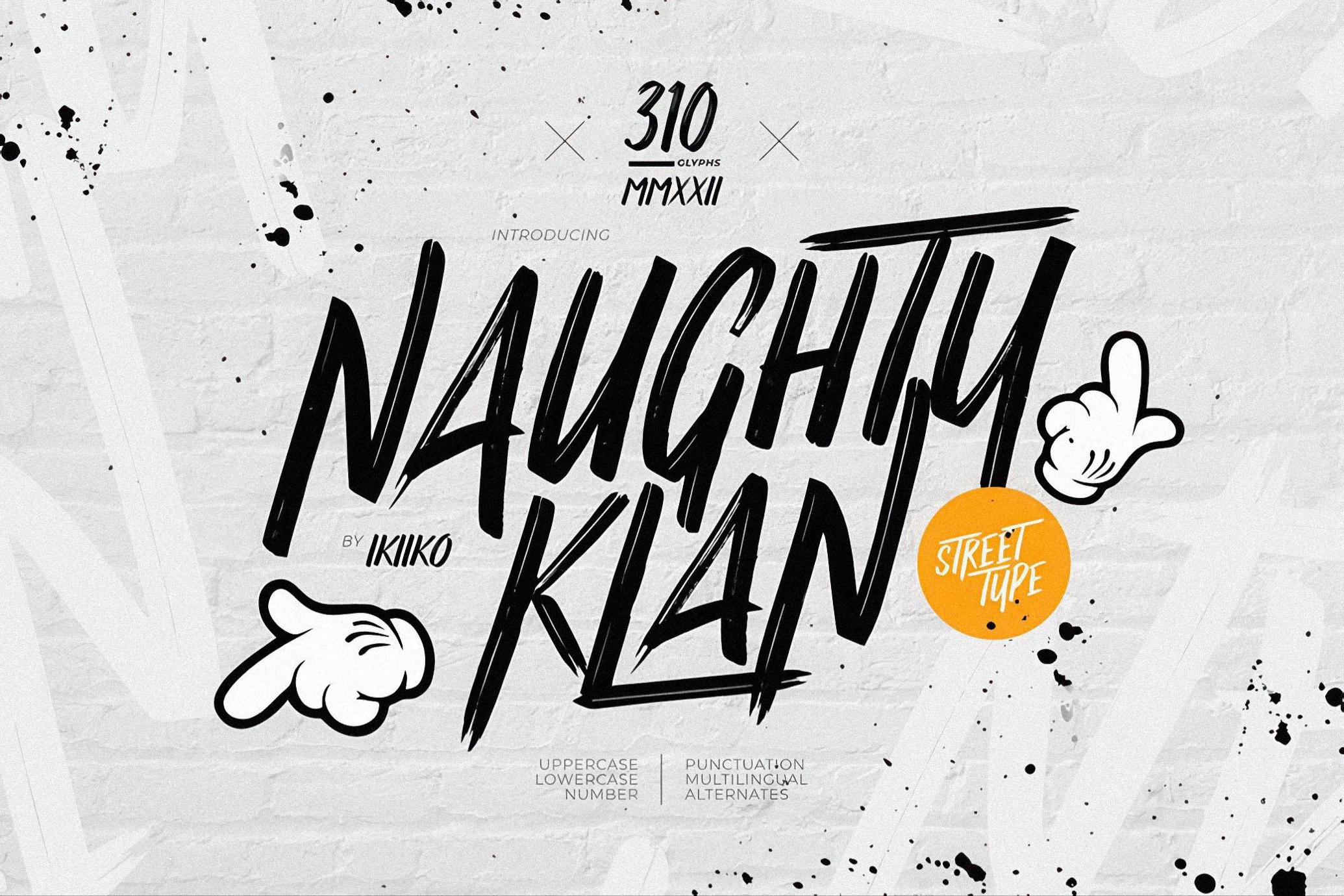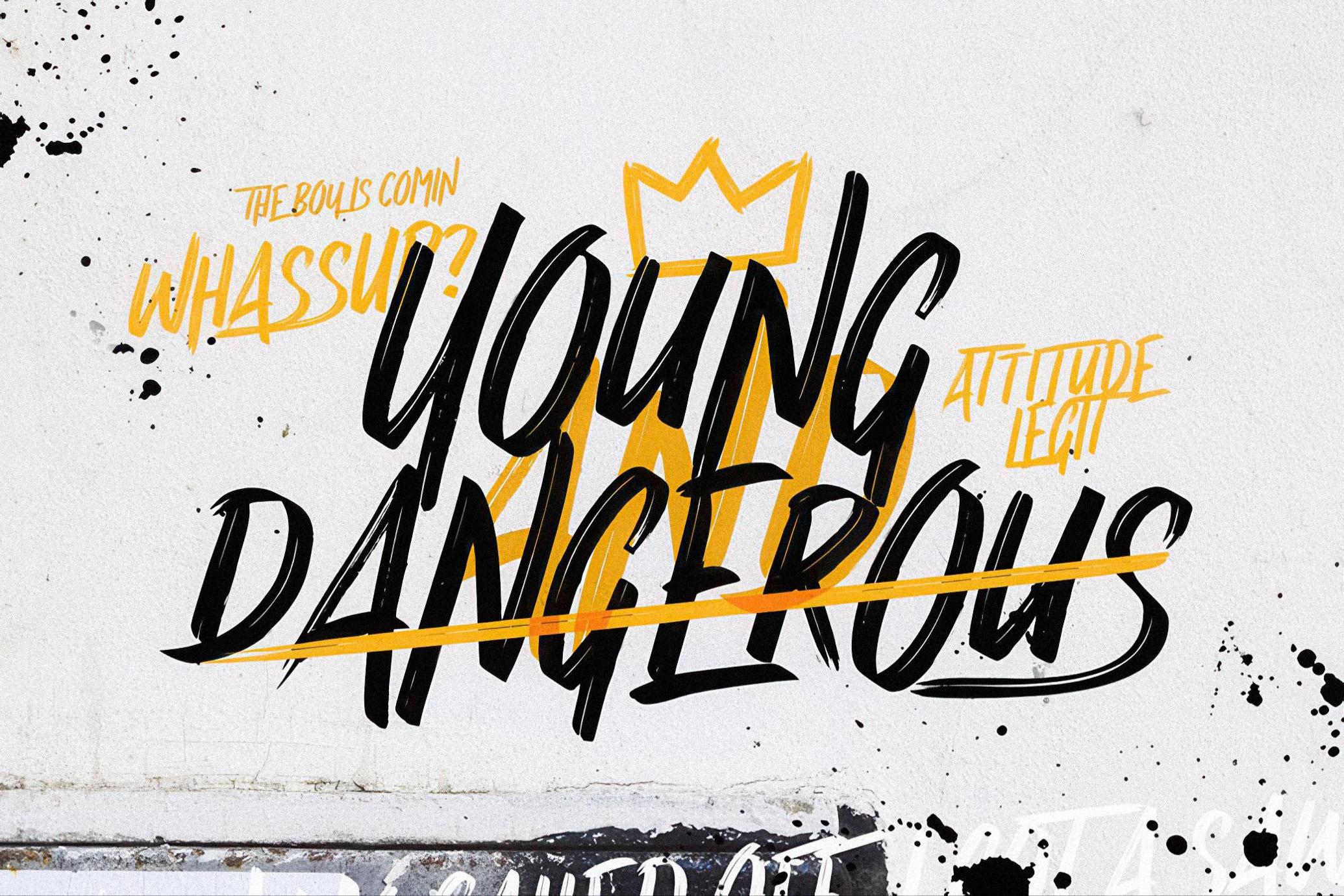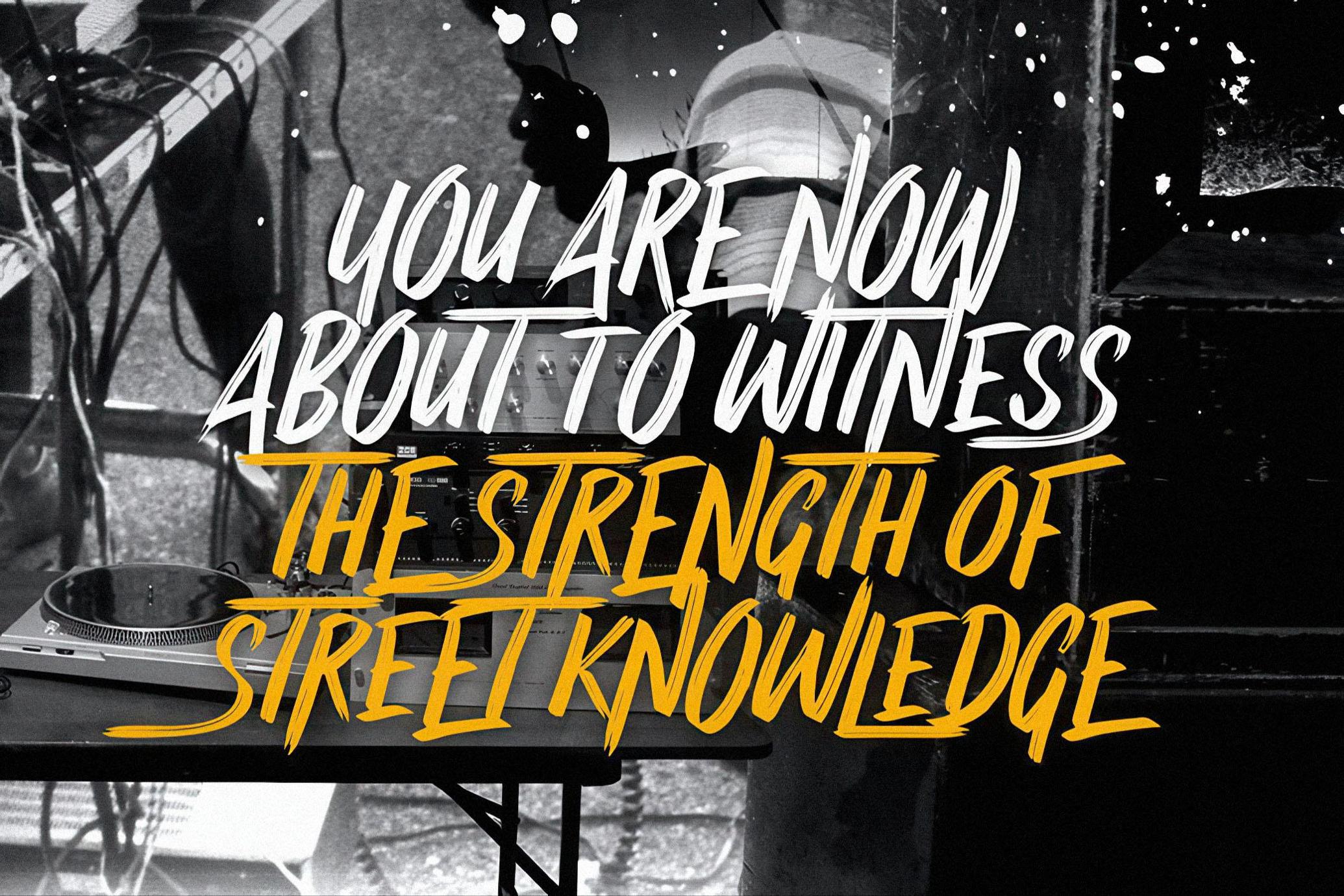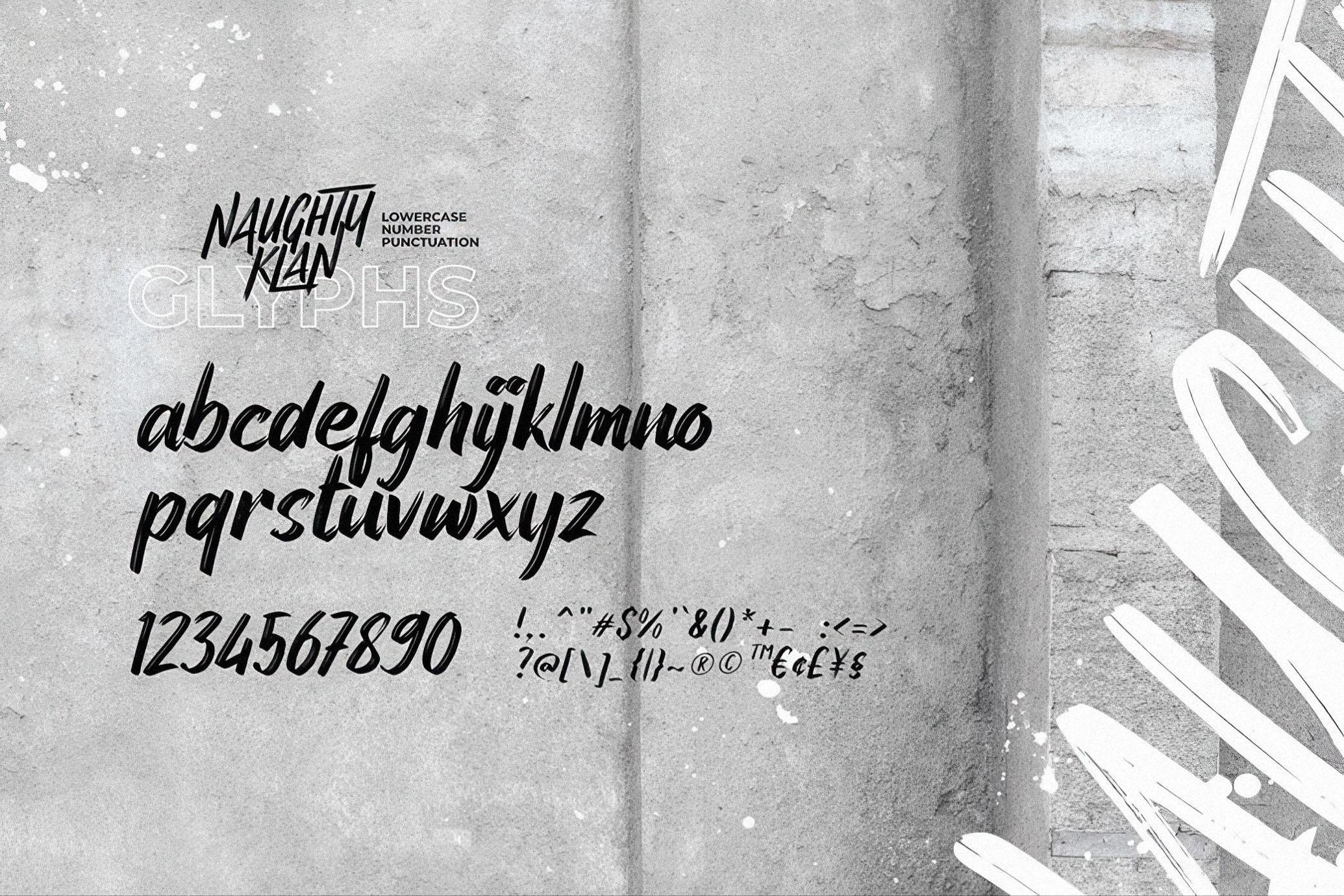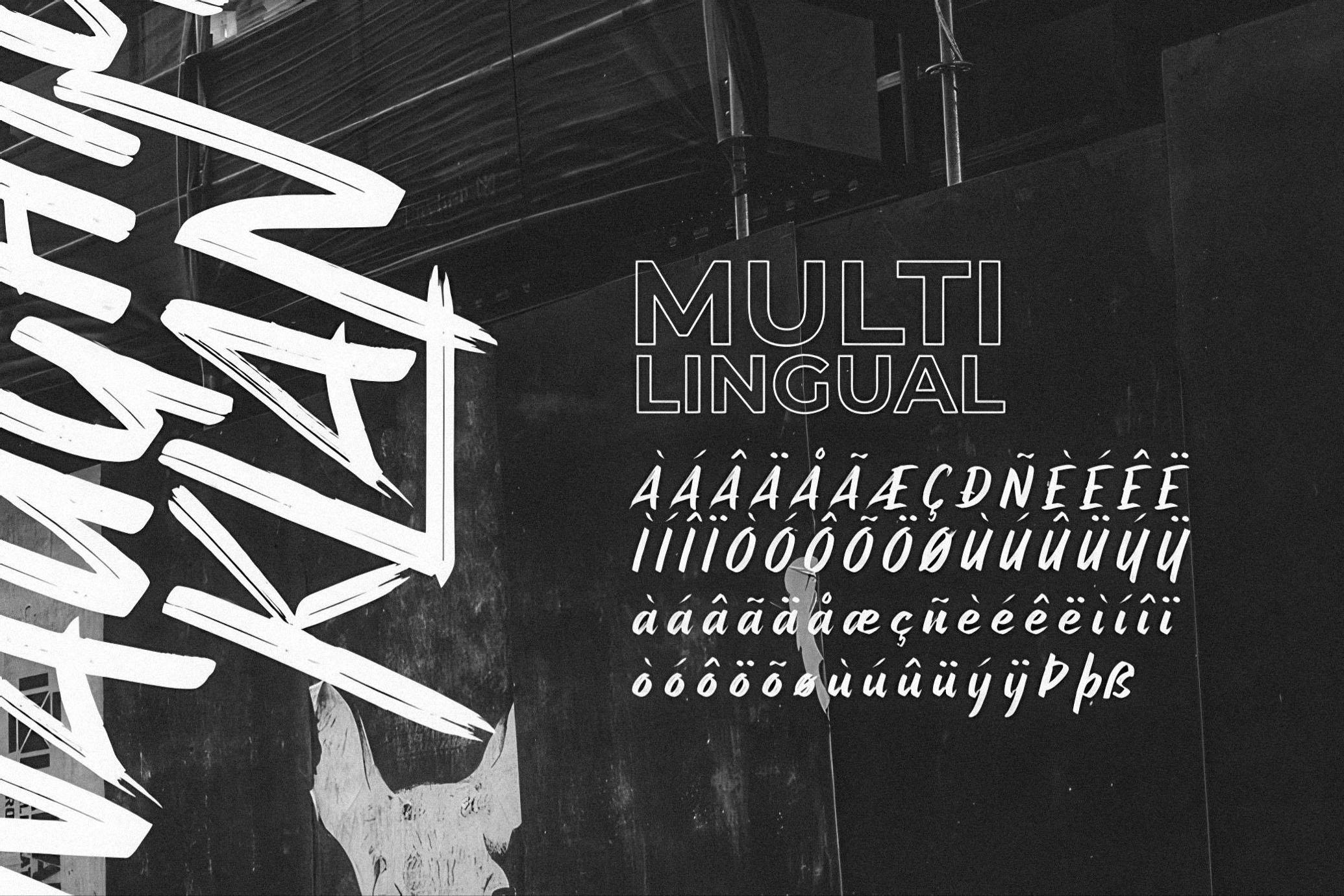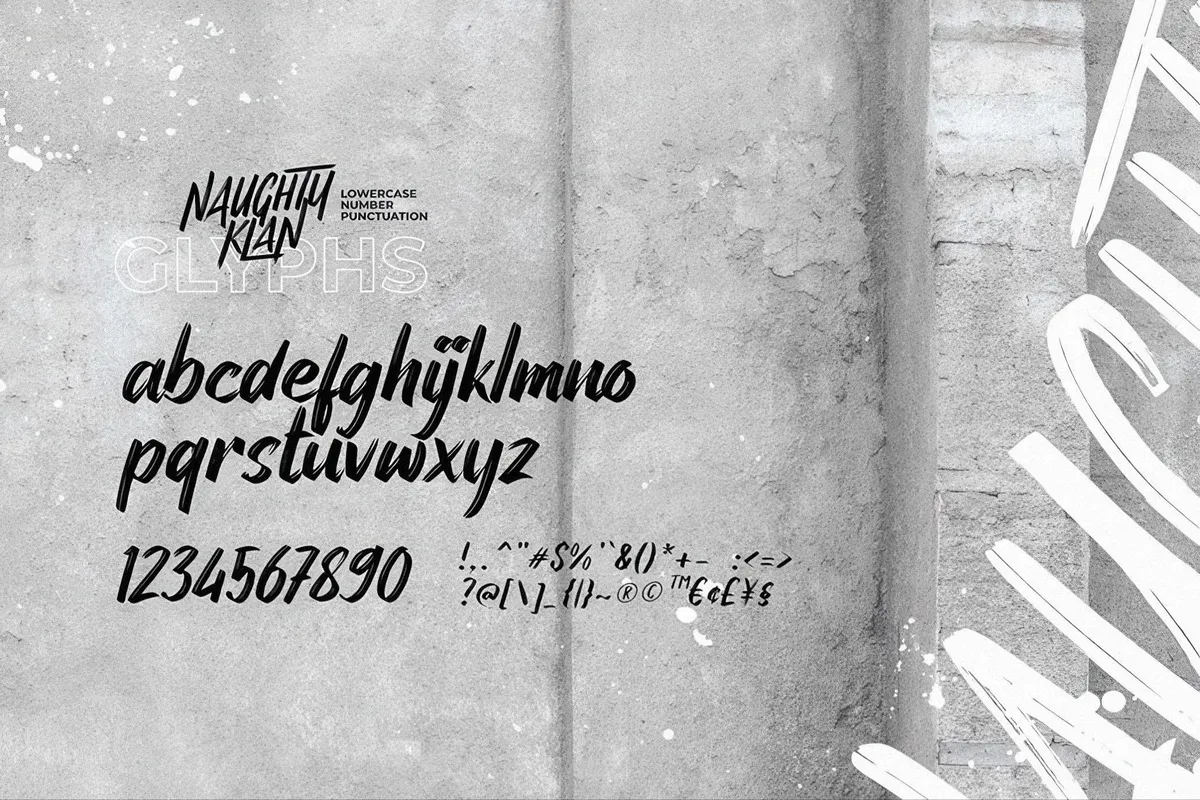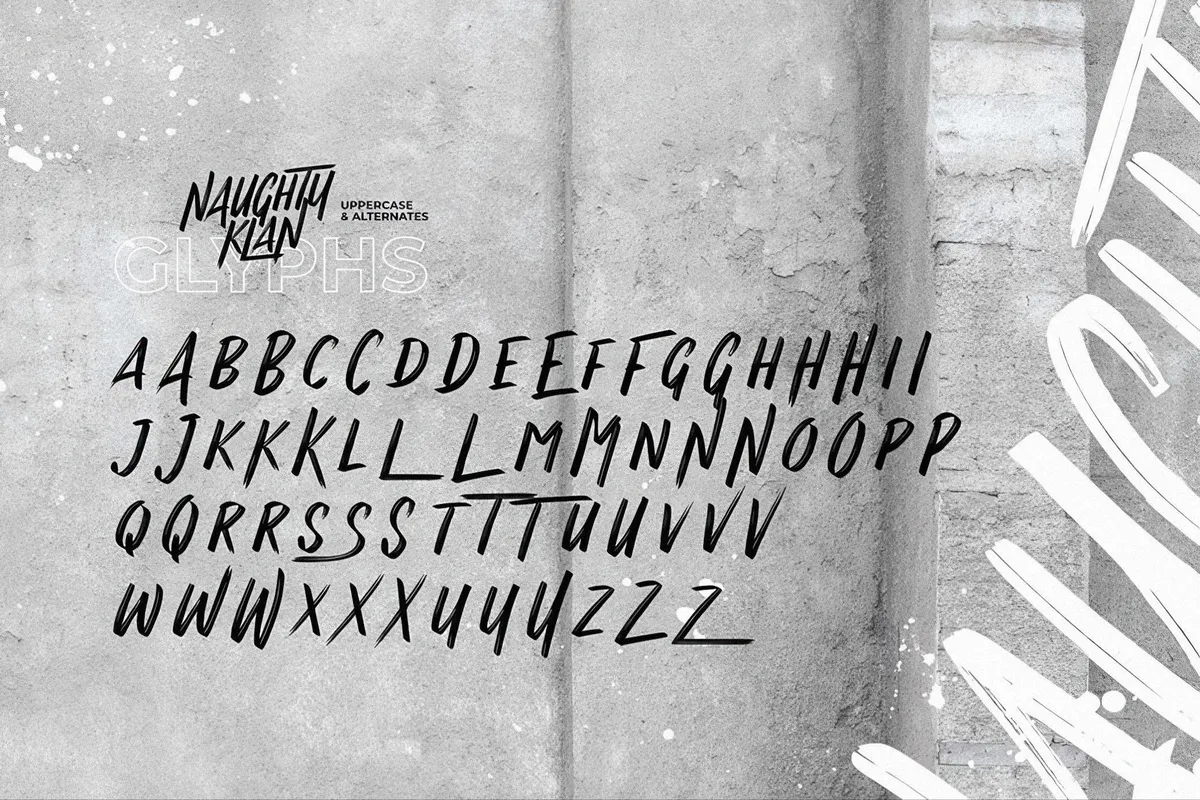
Naughty Klan - Street Font
Naughty Klan is a urban font with rough and expressive brush shape with touch of street culture. This type has a texture of graffiti vibes that has the characteristics of raw, freedom, youth and is filled with unique characters. This type is very suitable for making a poster, magazine layout, brand logo, sleeve cover, party flyer, quotes, or simply as a stylish text overlay to any background image.